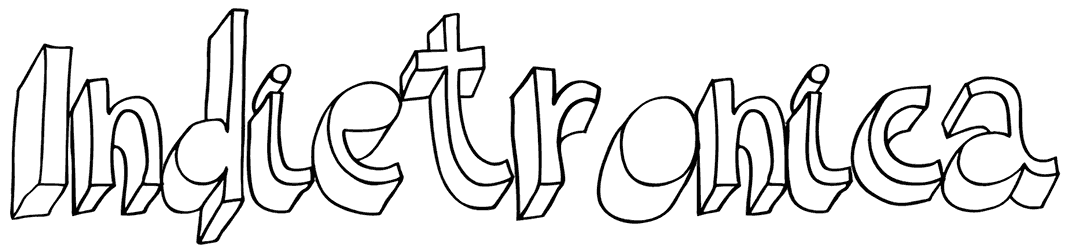
Indietronica Font
If you want an incredibly versatile font, we have a special offer, such as Indietronic, which comes with four distinctive styles and broadens your selection range, in the middle of bringing your creative ideas, such as video game posters, logos, billboards, book covers, or digital banners.
This 3D font can boost the feeling of innovation, exotic, eerie, and jauntiness in your projects. So we strongly recommend that you not overlook this outline font and make outstanding outcomes out of it.